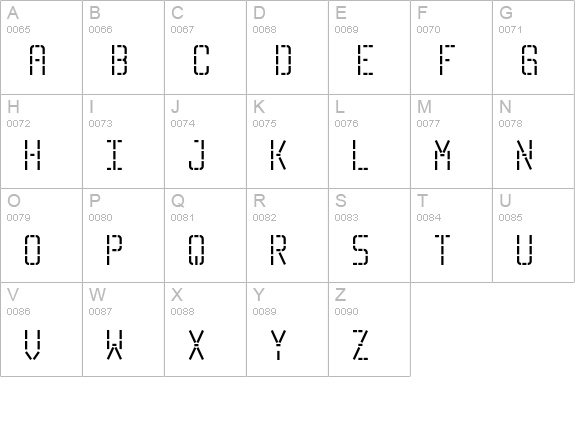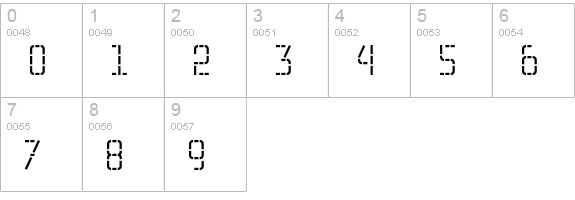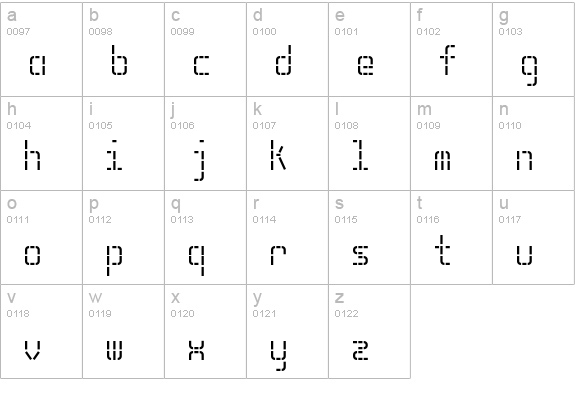
Luggagetag-Two font is a versatile and stylish typeface that exudes a modern and edgy vibe. With its unique and eye-catching design, this font is perfect for adding a touch of sophistication to your projects. The sleek lines and bold strokes of Luggagetag-Two make it stand out from the crowd, making it a great choice for branding, logos, headlines, and more. What makes Luggagetag-Two font even better is that it is available for free download at FontsMarket.com. Yes, you read that right - this fantastic font can be yours at no cost! So why wait? Add a touch of elegance and flair to your designs with Luggagetag-Two font today.